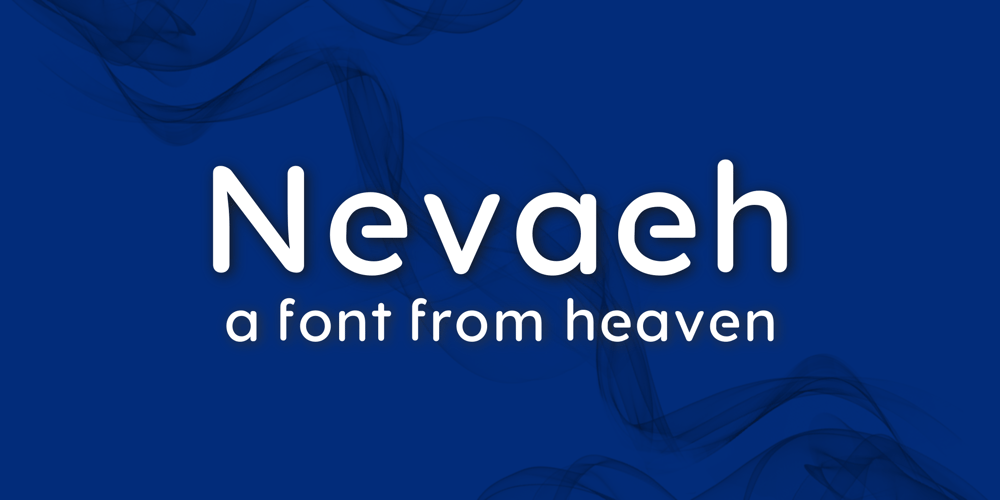
Nevaeh Font Family was designed by Ahsan Ahmedzai and published by Kufic Studio. Nevaeh contains 8 styles and family package options. Nevaeh which also stands for Heaven if read backward, it is a unique rounded and stylized font family.Nevaeh has a futuristic and minimalist look, and the creativity depends on the use of the font set.Nevaeh includes;Nevaeh Light, Nevaeh Light Italic, Nevaeh Regular, Nevaeh Italic, Nevaeh Bold, Nevaeh Bold Italic, Nevaeh Extra Bold, & Nevaeh Extra Bold Italic.The font has a simple and minimalist factor with all main characters, the font is specially made for those who are in the printing and branding fields.